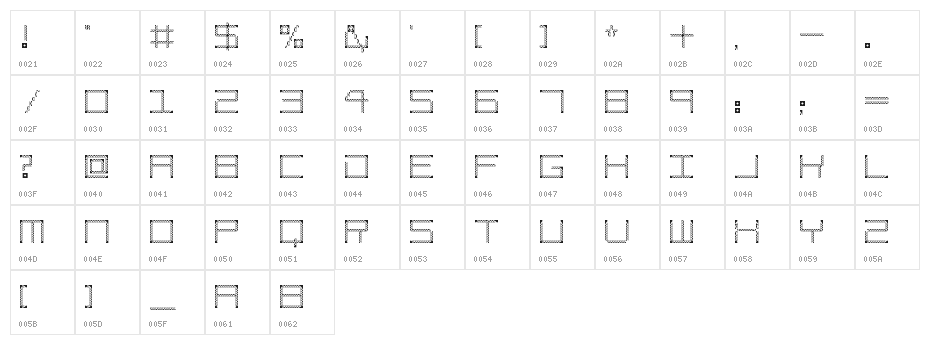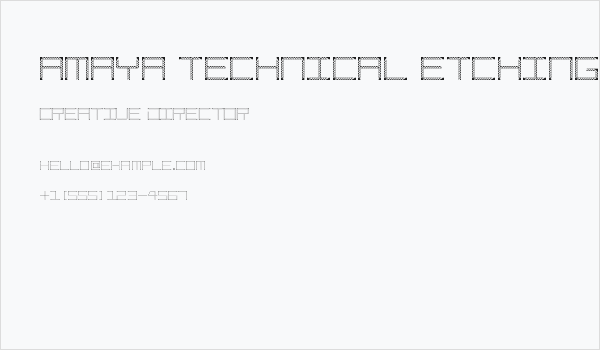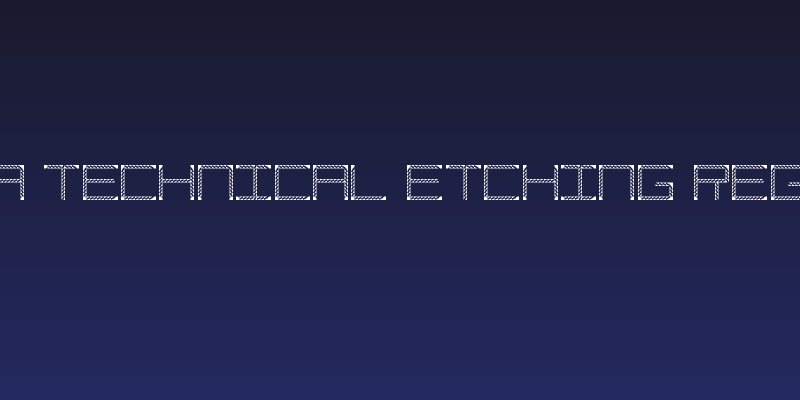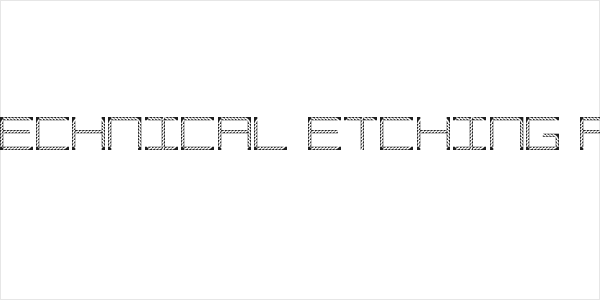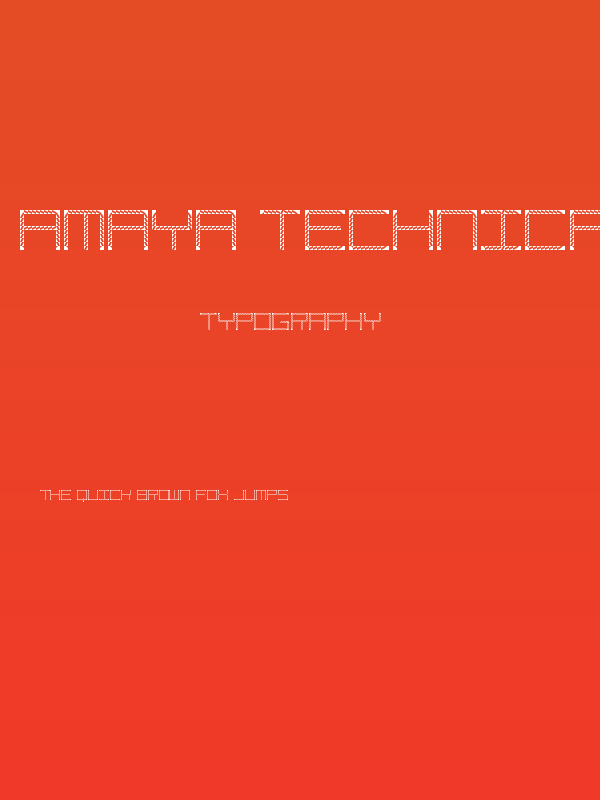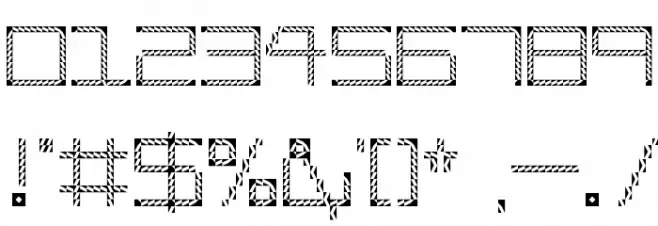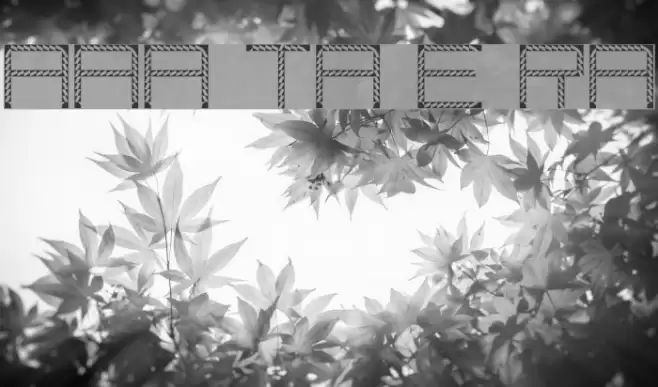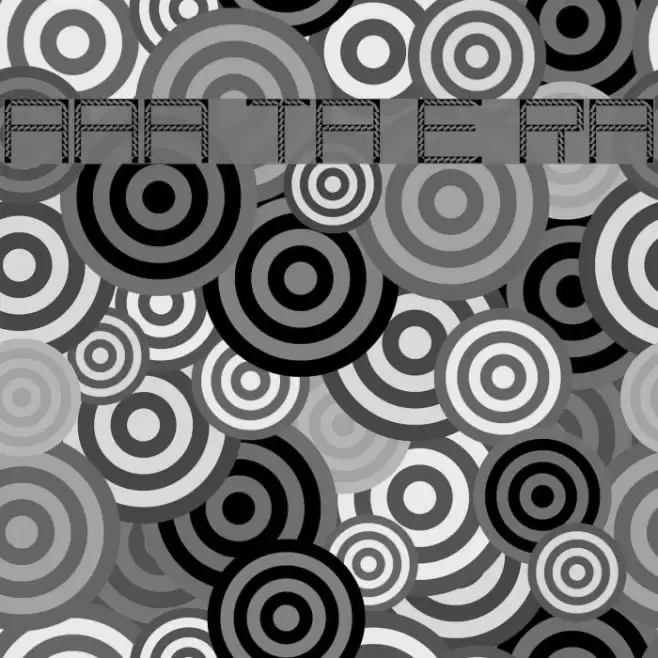
Amaya Technical Etching Regular Font
Amaya Technical Etching Regular Description
This font features a unique technical etching style, characterized by a pattern of diagonal lines filling each character. The design is geometric and structured, with a consistent line thickness that gives it a mechanical and industrial feel. The uppercase and lowercase letters maintain a uniform height, contributing to a cohesive appearance. Numbers and special characters are designed with the same etched pattern, ensuring visual consistency across all glyphs. The font's distinct style makes it stand out, suitable for projects that require a modern, technical aesthetic.
| Proposed Projects | Ideal for technical documents, engineering presentations, modern branding, and industrial-themed designs. |